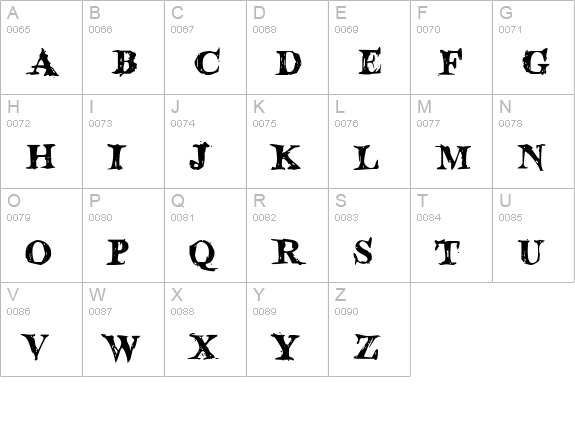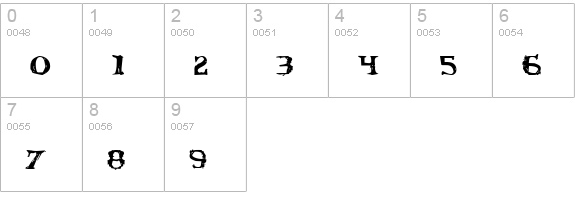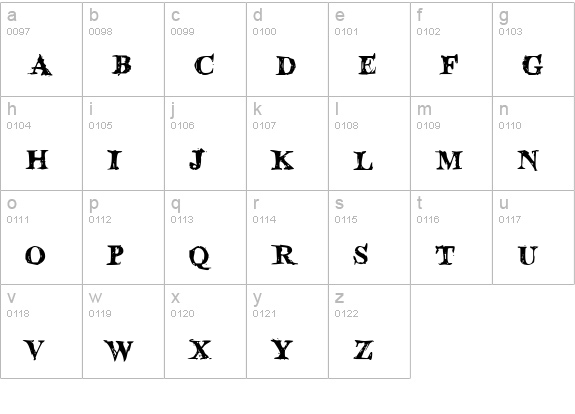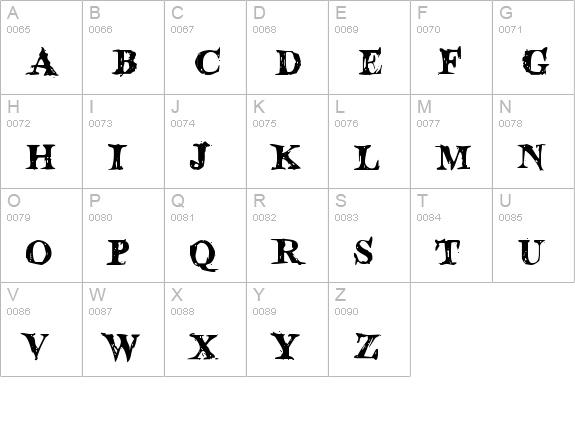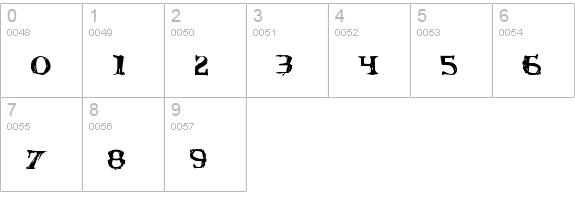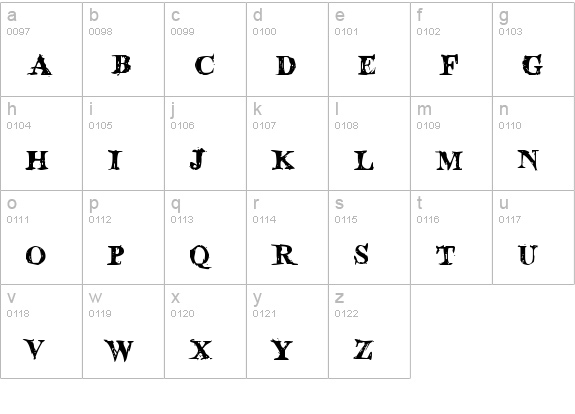
Introducing the captivating and bold Blood Crow font, a striking display typeface that will add a touch of mystery and intrigue to your designs. With its sharp edges and intricate details, Blood Crow is perfect for creating eye-catching headlines, posters, and logos that demand attention. This unique font is inspired by ancient script and features a dark and edgy aesthetic that is sure to make a statement. Whether you're working on a horror-themed project or simply want to add a touch of drama to your designs, Blood Crow is the perfect choice. Best of all, Blood Crow is available for free download at FontsMarket.com, making it accessible to designers of all skill levels. Don't miss out on the opportunity to add this versatile and impactful font to your collection today. Let your creativity soar with Blood Crow font!